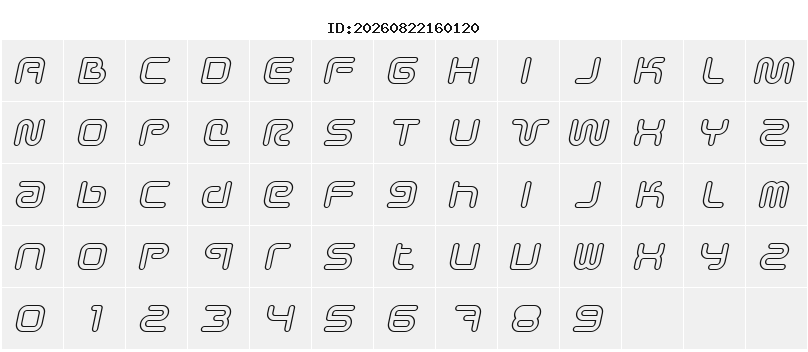
• Font Name: Sci Fied Outline
• Full Font Name: Sci Fied Outline Italic
About Sci Fied Outline.ttf
Sci Fied Outline.ttf is a modern, elegant sans-serif font designed for ultimate readability and visual harmony. Perfect for branding, headlines, web design, and print materials.